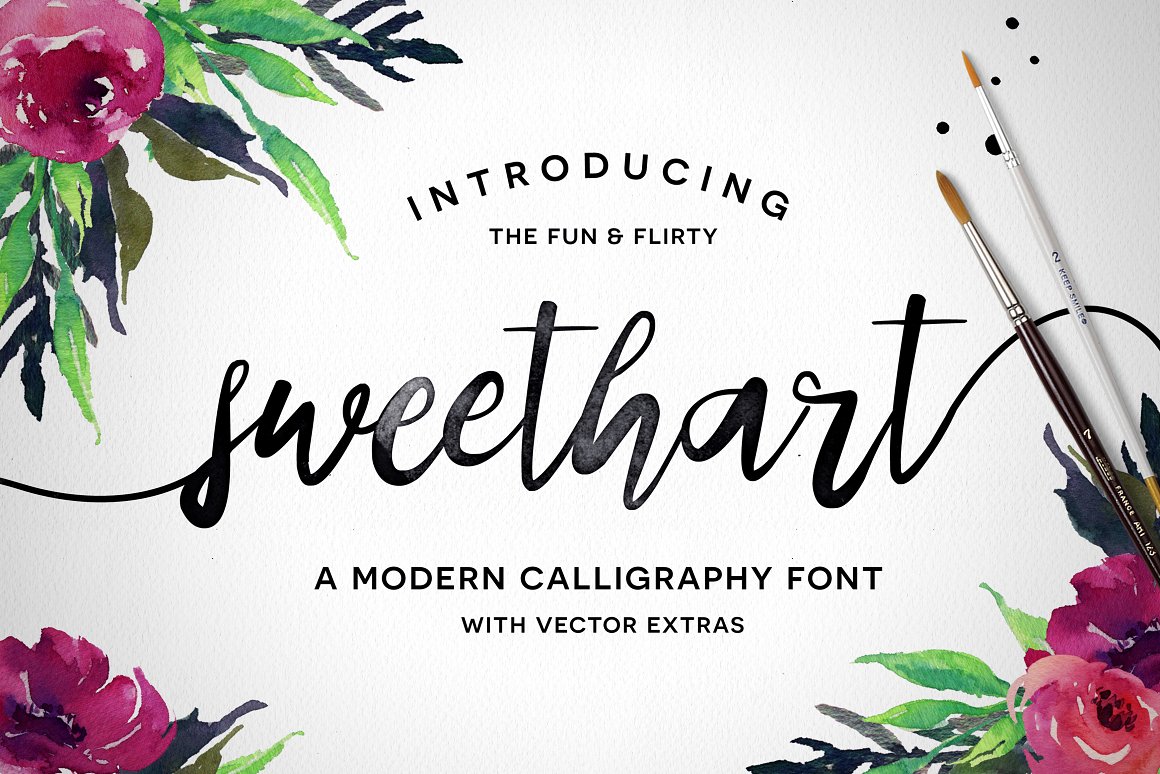
Sweethart Script
Sweethart Script Font
Sweethart Script + Vectors
Sweethart is a fun & flirty script font with some rad bonuses! It’s fat-to-thin brush strokes and imperfect baseline give it a fun and stylish aesthetic perfect for typography, branding, logo design, invitations, and prints.
Sweethart Script